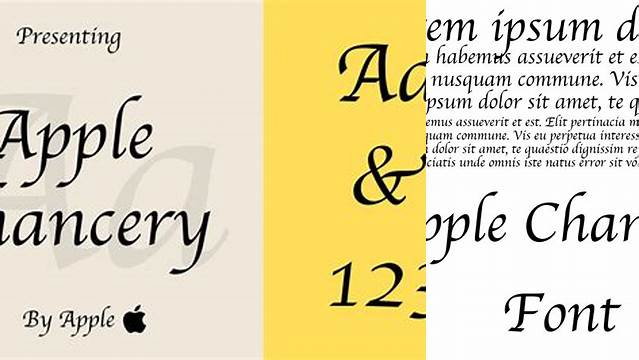
Hey guys! Ever stumbled upon a font that just oozes elegance and sophistication? Well, let's talk about Apple Chancery Italic, a typeface that’s been a favorite for designers and typographers for ages. This article will dive deep into everything you need to know about this gorgeous font, from its history and characteristics to where you can snag it for free and how to use it in your projects. So, buckle up and let's get started!
1. What is Apple Chancery Italic Font?
Apple Chancery Italic is more than just a font; it's a piece of digital history. Designed by Charles Bigelow and Kris Holmes in the early 1990s, it was initially bundled with Apple's operating systems. What makes this font special? It’s a calligraphic typeface, meaning it mimics the fluid strokes of handwriting. Think of it as the digital equivalent of a beautifully handwritten letter. Its elegant curves and graceful appearance make it perfect for projects that need a touch of class, from wedding invitations to branding materials. This iconic font has a distinct personality that sets it apart from your everyday Times New Roman or Arial.
2. History and Evolution of Apple Chancery Italic
To truly appreciate Apple Chancery Italic, let's take a quick trip down memory lane. The font was born out of a desire to bring the beauty of calligraphy to the digital world. Charles Bigelow and Kris Holmes, the masterminds behind this typeface, drew inspiration from historical calligraphic scripts, particularly the Chancery hand, which was popular during the Renaissance. They aimed to create a font that not only looked authentic but also felt natural to read. Over the years, Apple Chancery Italic has become a symbol of Apple's commitment to design and typography. It has evolved through various iterations, but its core essence – its elegant and flowing letterforms – has remained consistent. Its historical roots and artistic design make it a timeless classic in the world of fonts.
3. Key Characteristics of Apple Chancery Italic
So, what exactly makes Apple Chancery Italic stand out from the crowd? For starters, it’s the italic nature of the font that gives it its signature slant and dynamism. The characters seem to be in constant motion, flowing seamlessly from one letter to the next. The font also boasts delicate serifs and intricate details that add to its overall elegance. Think of the graceful curves of the lowercase 'g' or the sweeping ascenders and descenders. These elements combine to create a typeface that’s both readable and visually stunning. Whether you’re using it for headers or body text, Apple Chancery Italic brings a touch of sophistication to any project. Its unique features make it a favorite among designers.
8. Using Apple Chancery Italic in Graphic Design Projects
Now for the fun part: putting Apple Chancery Italic to work in your graphic design projects! This font is incredibly versatile and can add a touch of elegance to a wide range of applications. Think wedding invitations, greeting cards, logos, and branding materials. Its graceful curves and flowing letterforms make it perfect for projects that need a touch of sophistication. When using Apple Chancery Italic, it's essential to consider the context and choose complementary fonts that enhance its beauty. Pair it with a clean, sans-serif font for a modern contrast, or use it sparingly as a decorative element to add visual interest. The key is to use the font thoughtfully and let its unique characteristics shine.
9. Pairing Apple Chancery Italic with Other Fonts
30. Final Thoughts on Apple Chancery Italic Font and Its Uses
Apple Chancery Italic is a timeless font that continues to inspire designers with its elegance and sophistication. Whether you're using it for invitations, logos, or branding materials, it can add a touch of class to your projects. By understanding its history, characteristics, and best practices for usage, you can harness its power to create stunning typographic designs. Remember to consider licensing, legibility, and accessibility when using this or any other font. Happy designing, font enthusiasts!